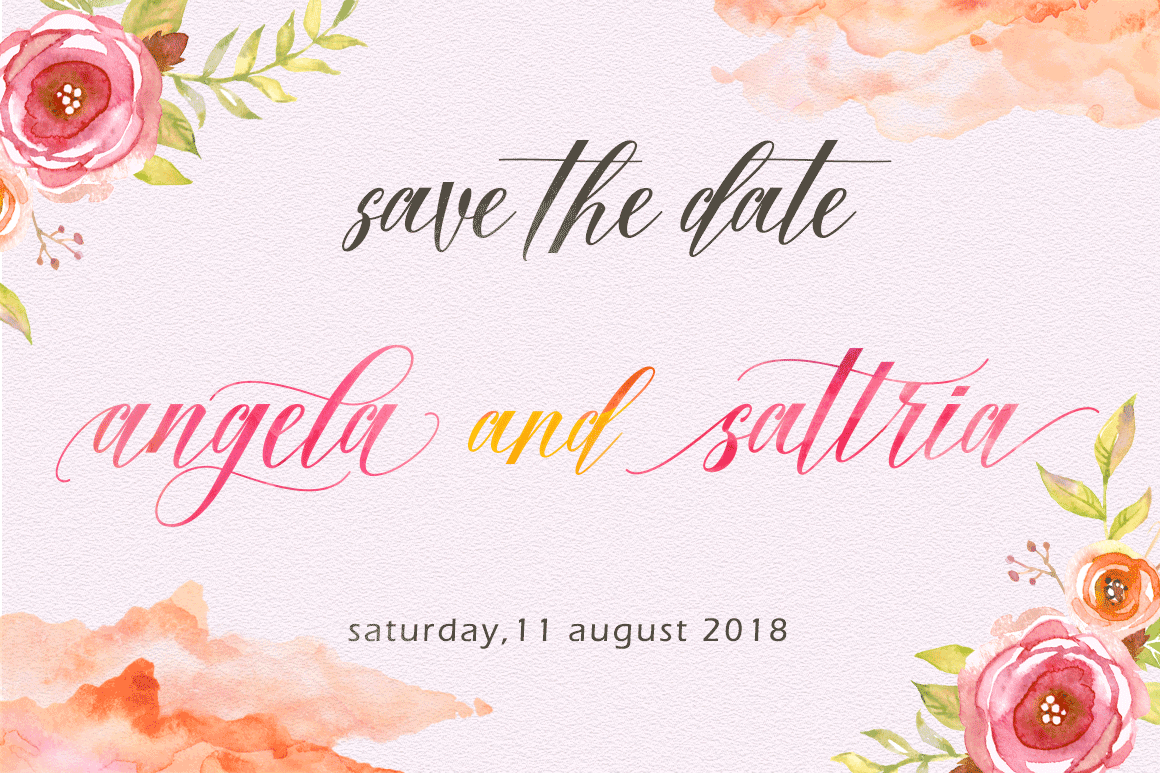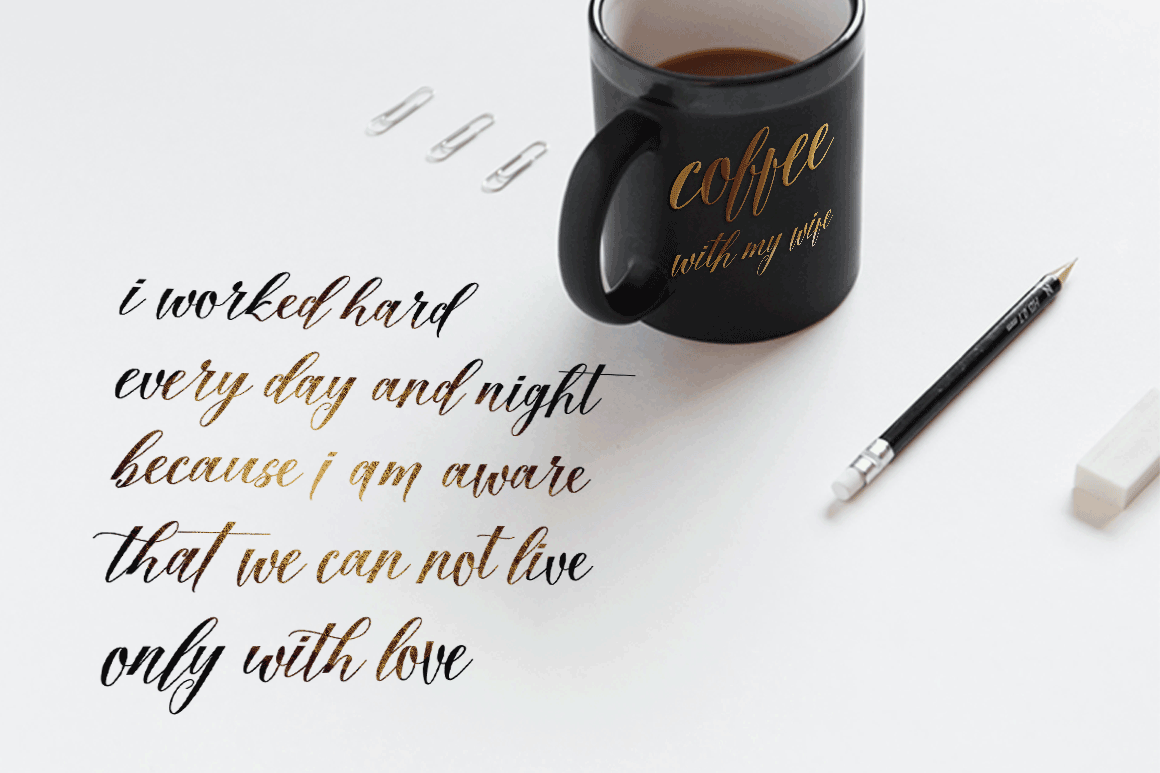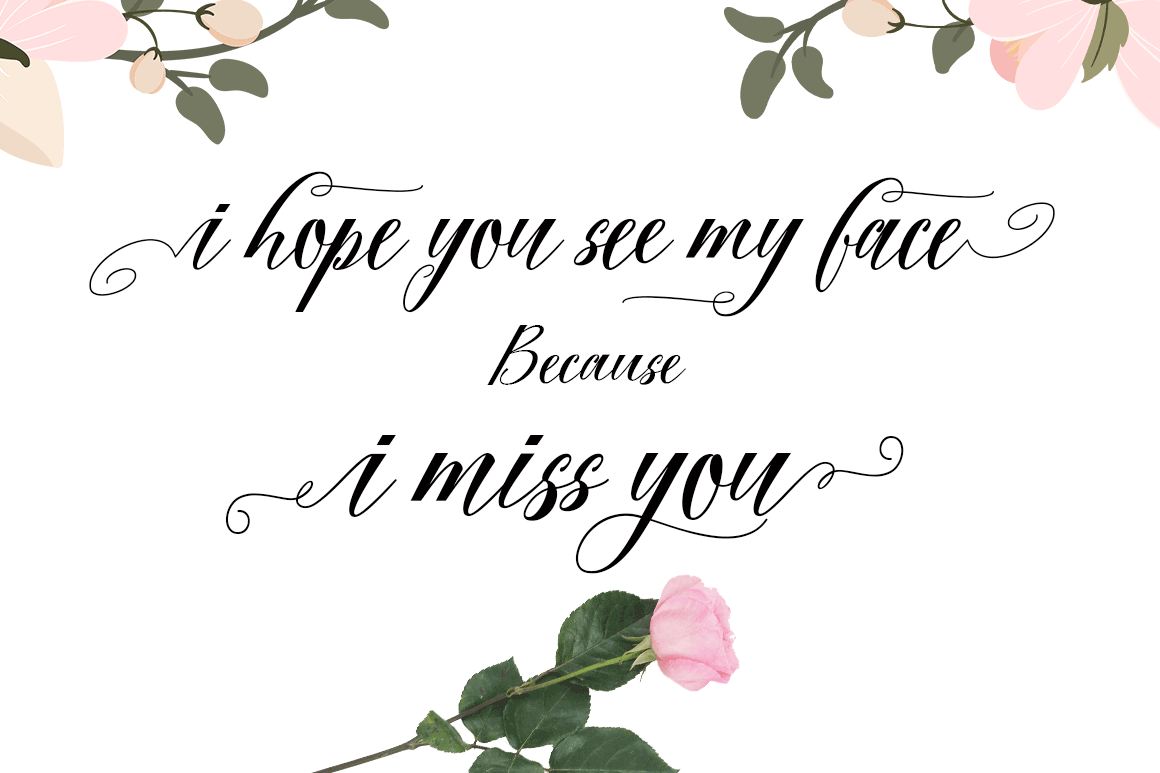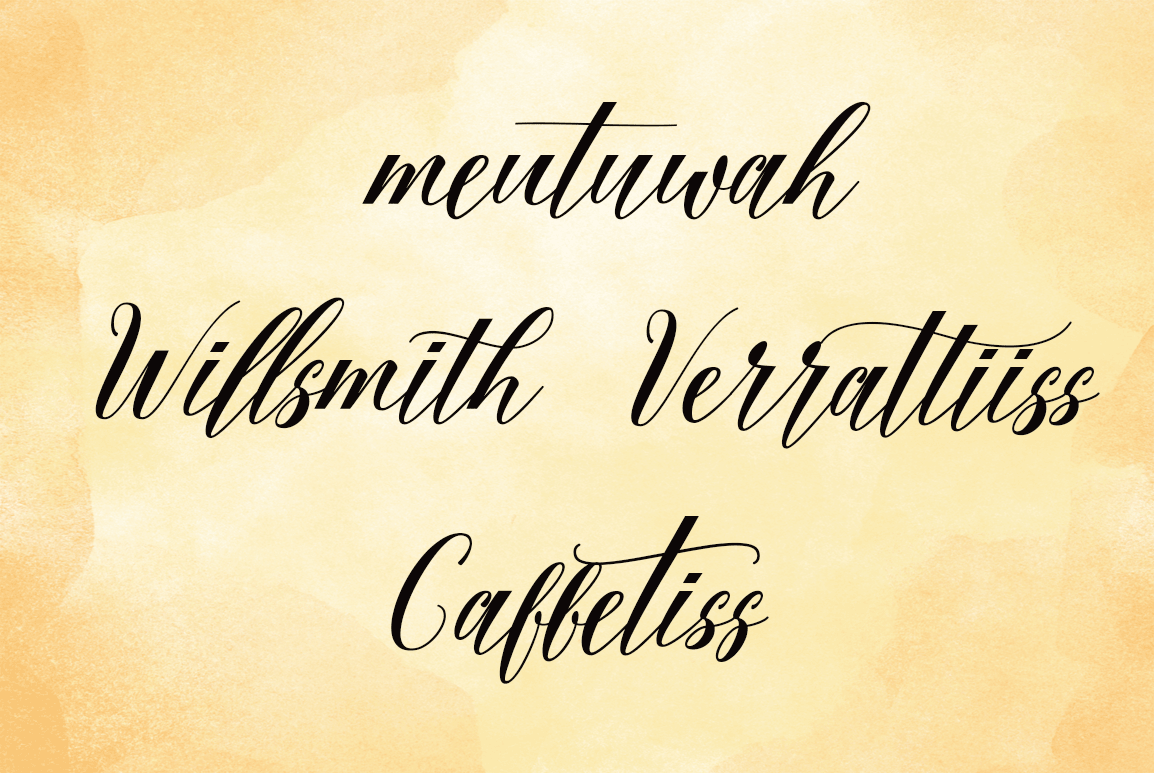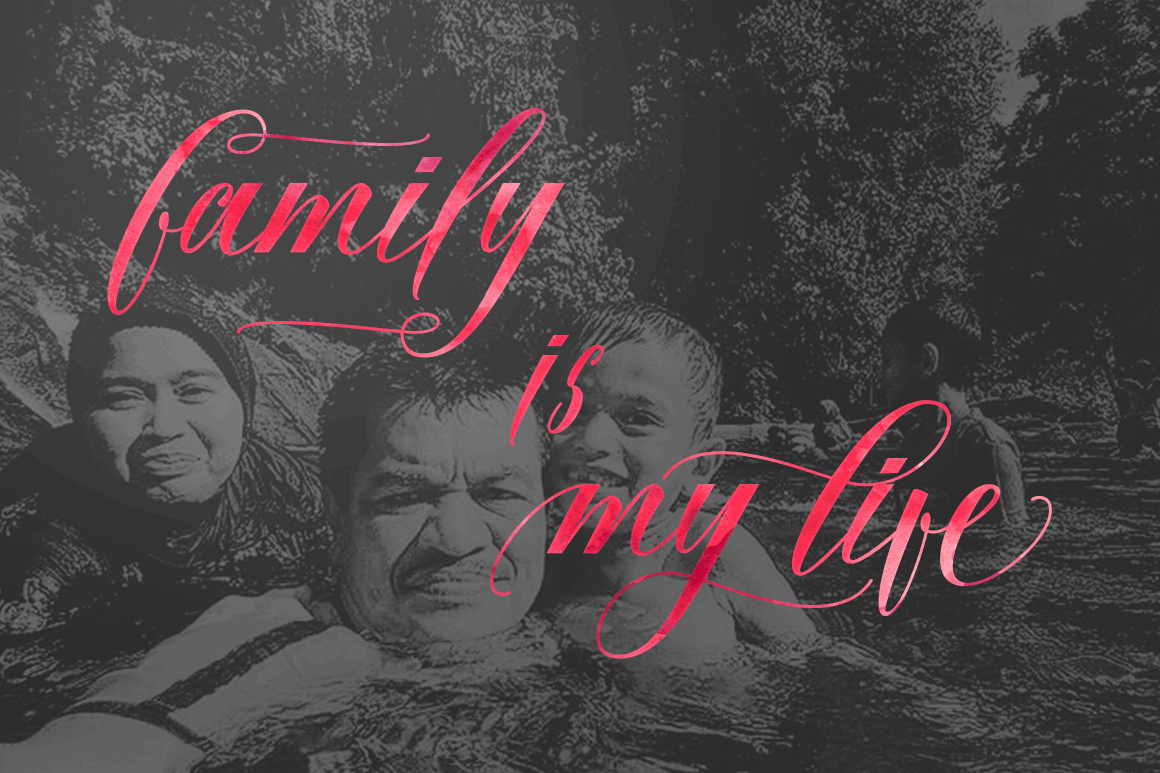
Introduction to Fadhil Font
Fadhil is a handmade font created by Meutuwah.
Itโs a fluid, happy font that is suitable for many different types of projects .